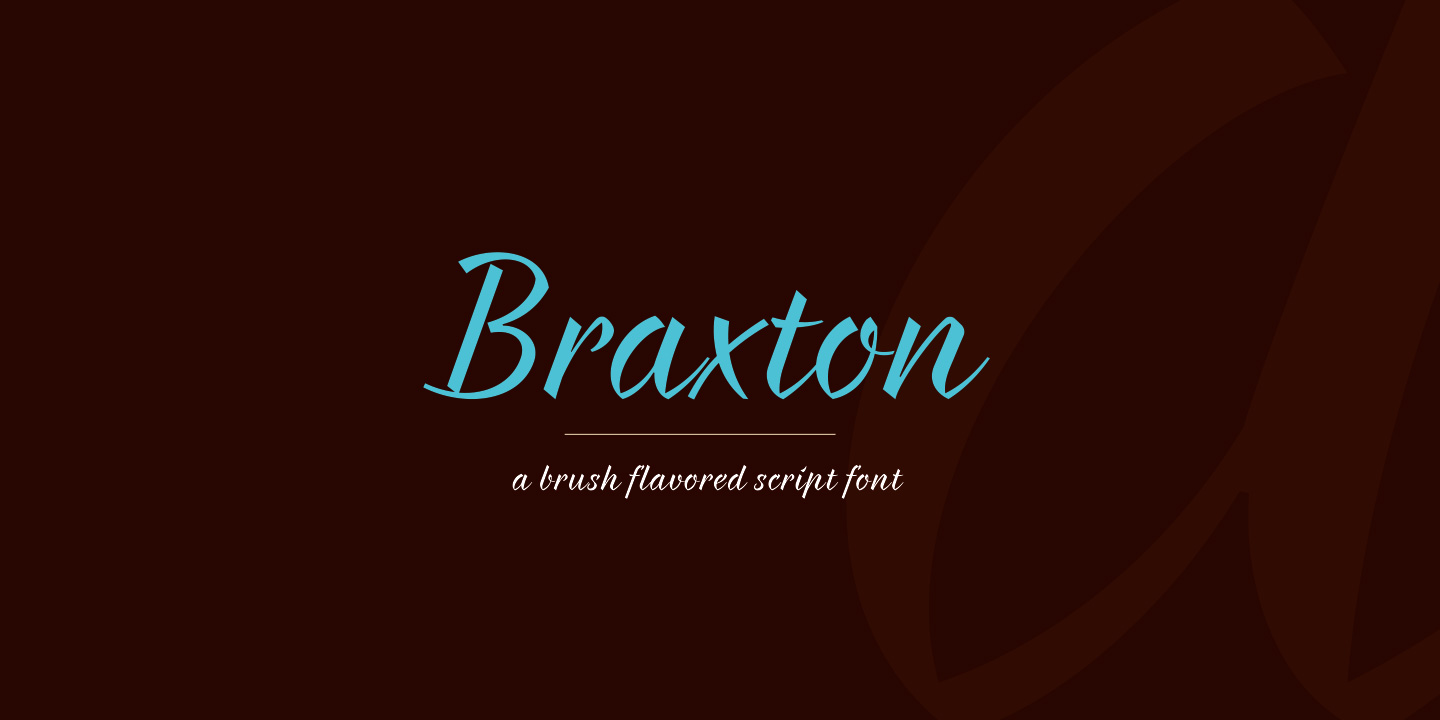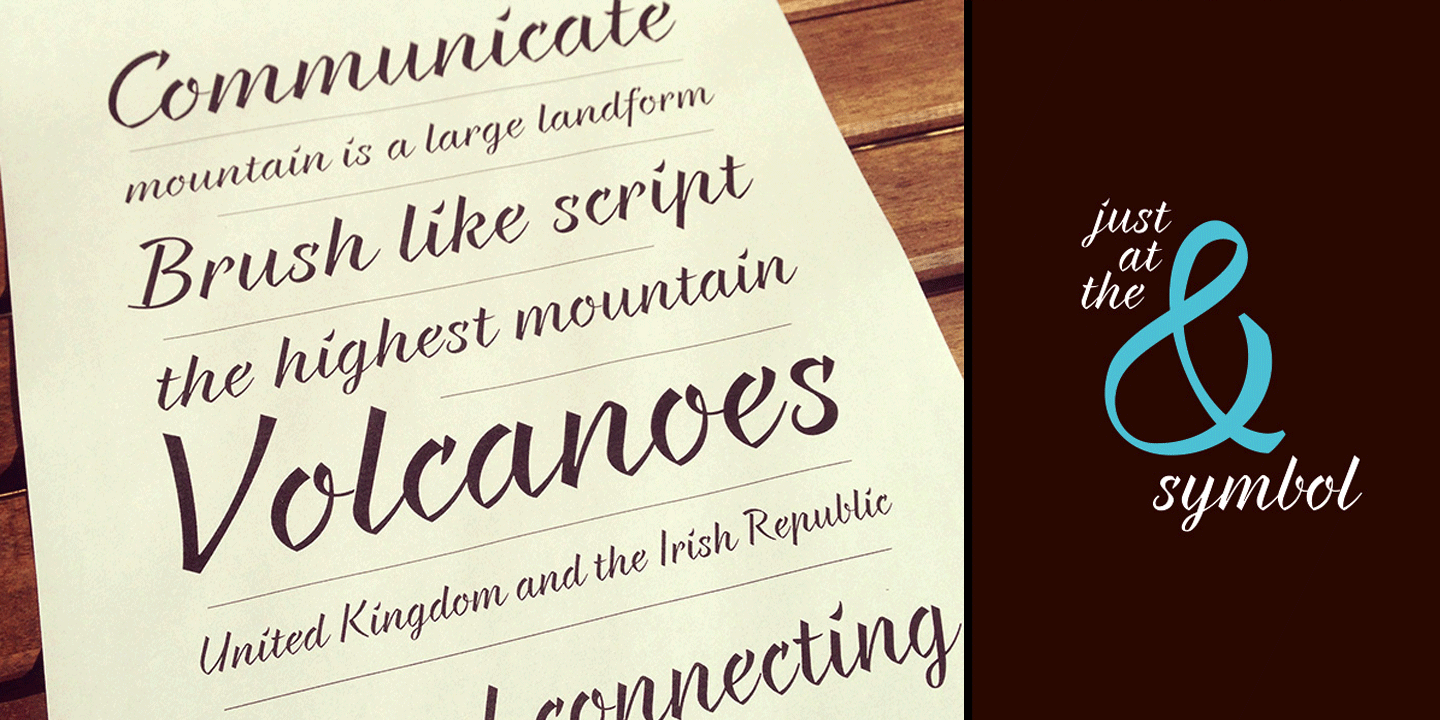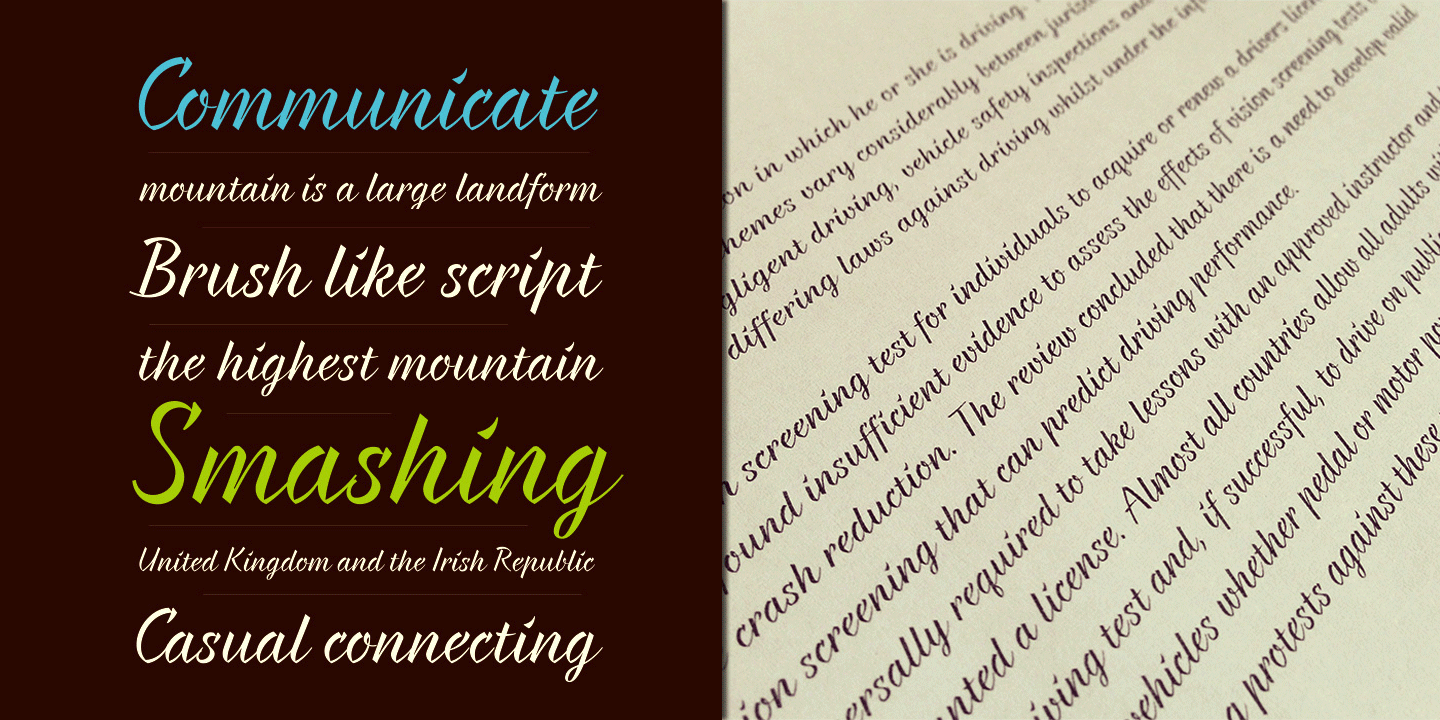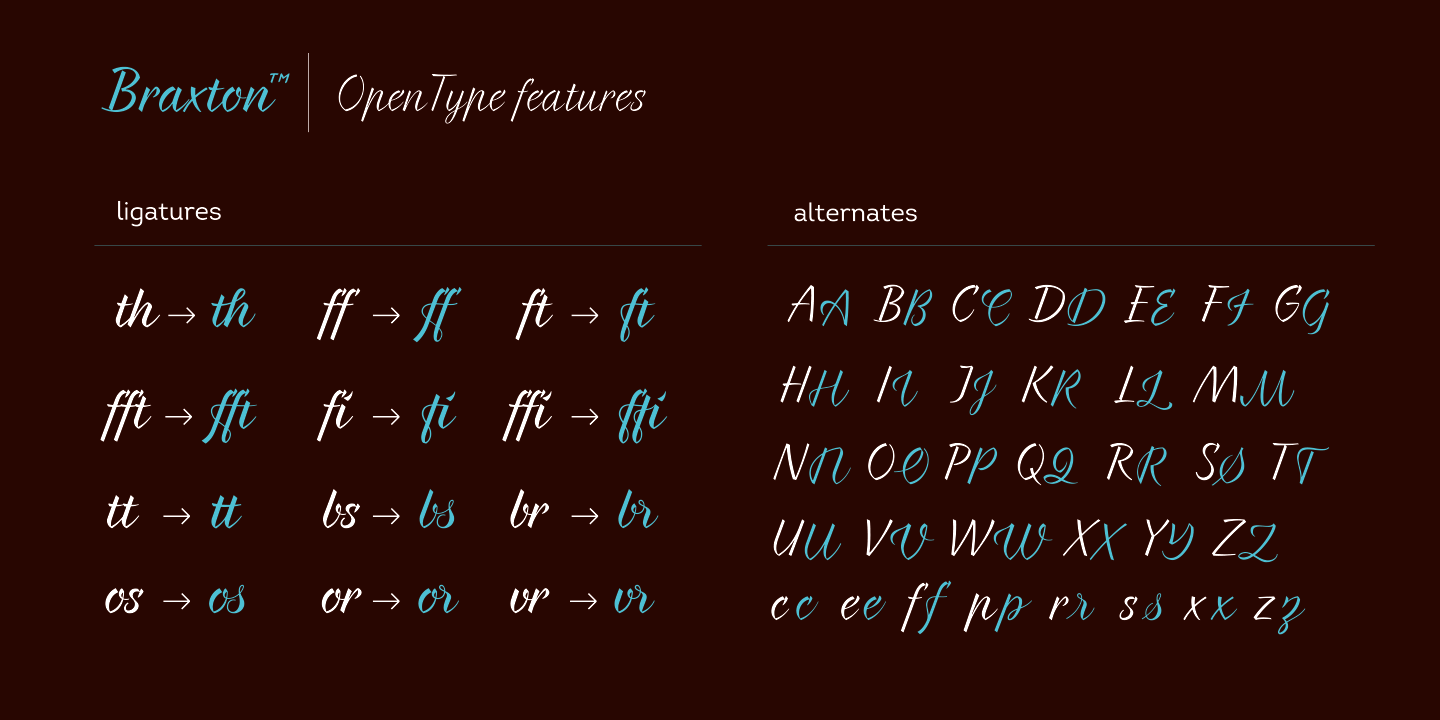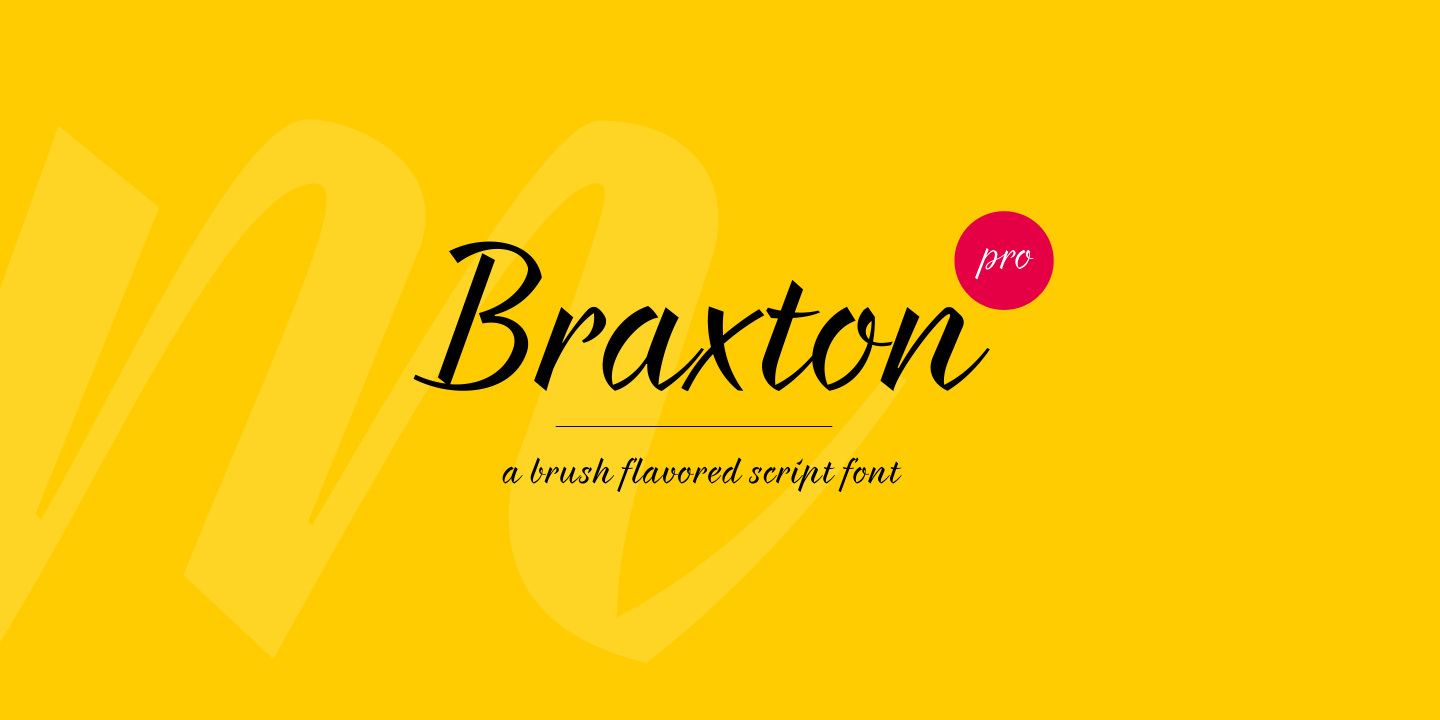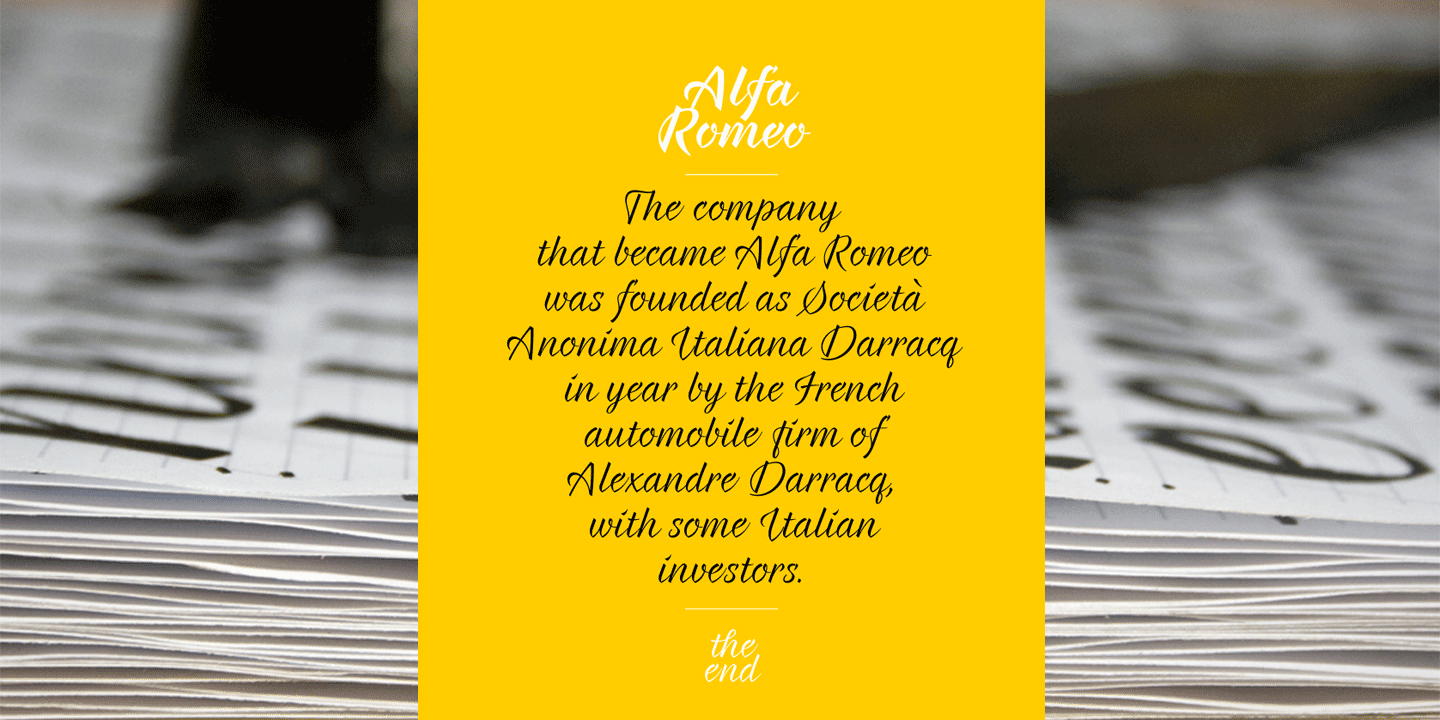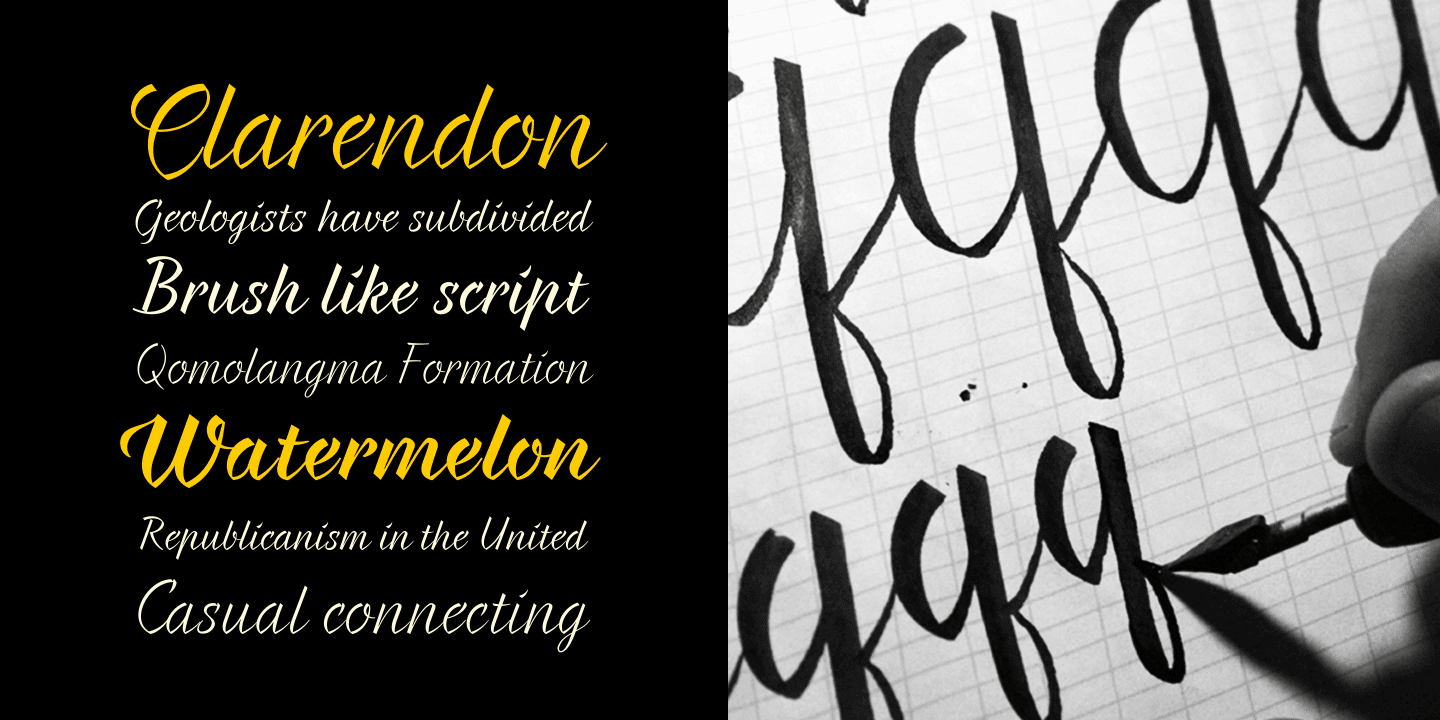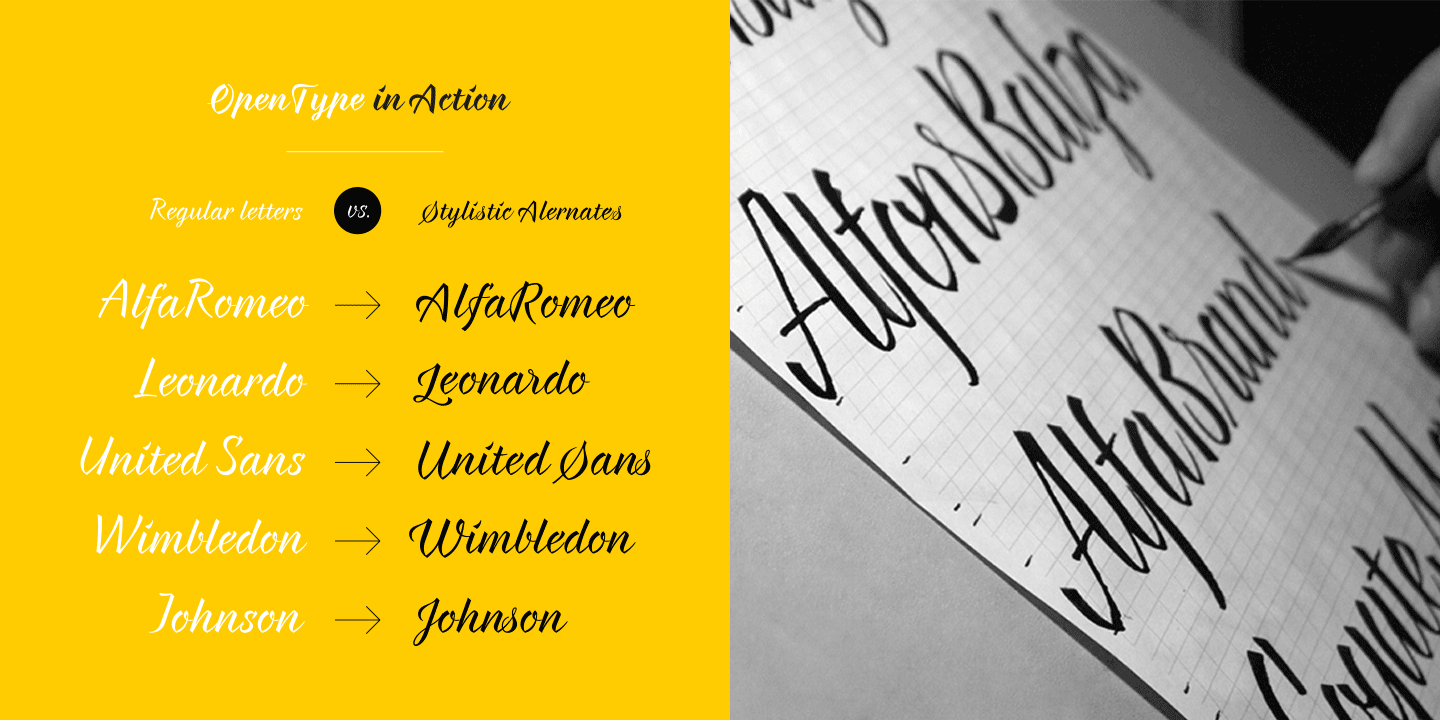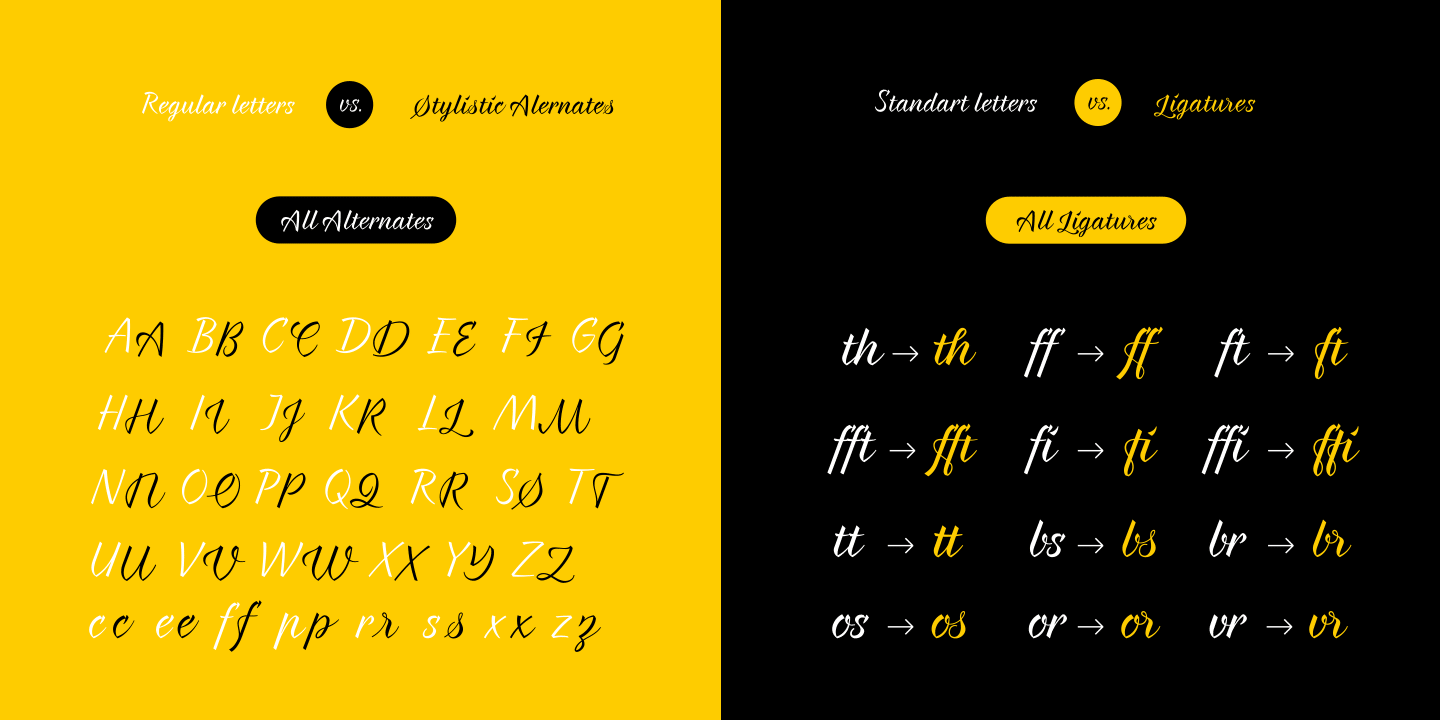
Braxton Family (5 fonts)
From Fontfabric
Braxton - brush flavored script font family includes 5 unique font weights. The font family is characterized by excellent legibility in both - web & print design areas, well-finished calligraphic designs, optimized kerning etc.
Braxton is most suitable for headlines of all sizes, as well as for text blocks that come in both maximum and minimum variations. The font styles are applicable for any type of graphic design - web, print, motion graphics etc and perfect for t-shirts and other items like posters, logos.